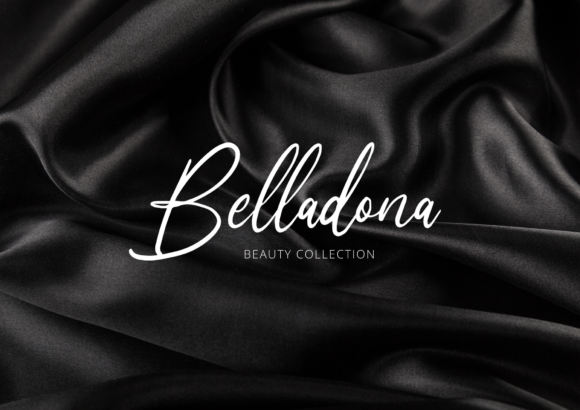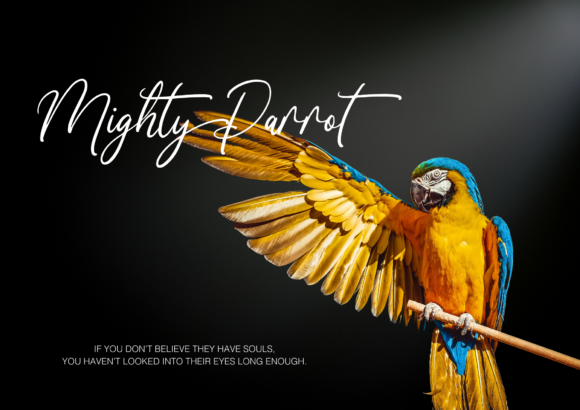
Mirabella Modern Signature Font
db-ku.com - Script & Handwritten -- Mirabella Modern Signature is a free-flowing script font created for packaging products, invitation cards, flyers, mockups, event posters, and anything else that requires high-quality vibes. It has a beautiful and balanced character, that fits well with the large design pool. This font is PUA encoded which means you can access all of the glyphs and swashes with ease.